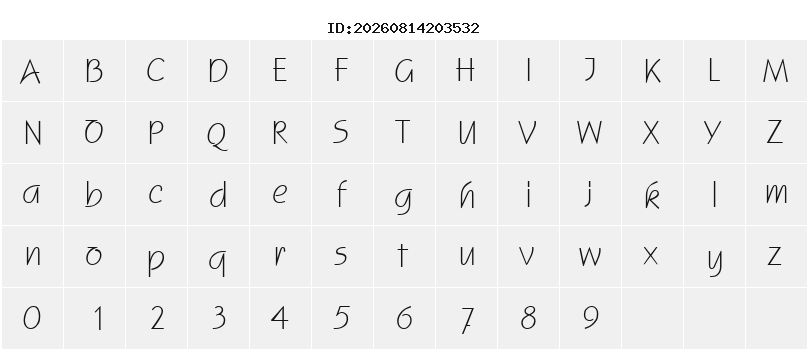
• Font Name: Status
• Full Font Name: Status Regular
About Status.ttf
Status.ttf is a modern, elegant sans-serif font designed for ultimate readability and visual harmony. Perfect for branding, headlines, web design, and print materials.